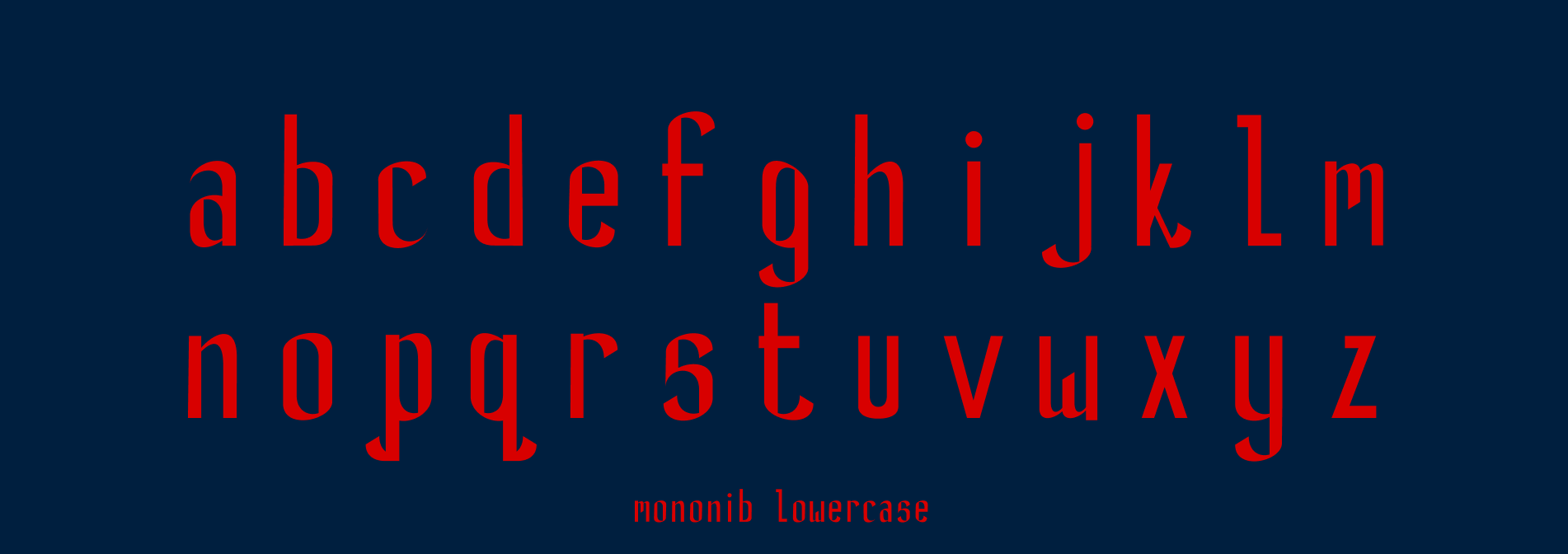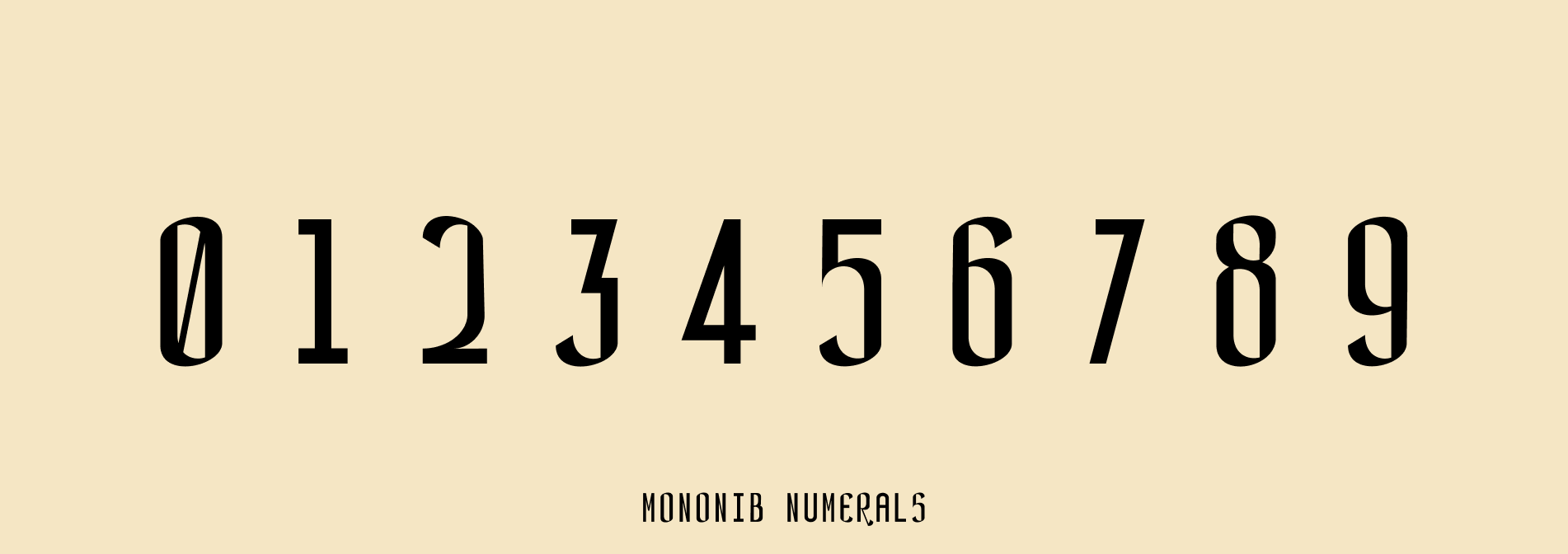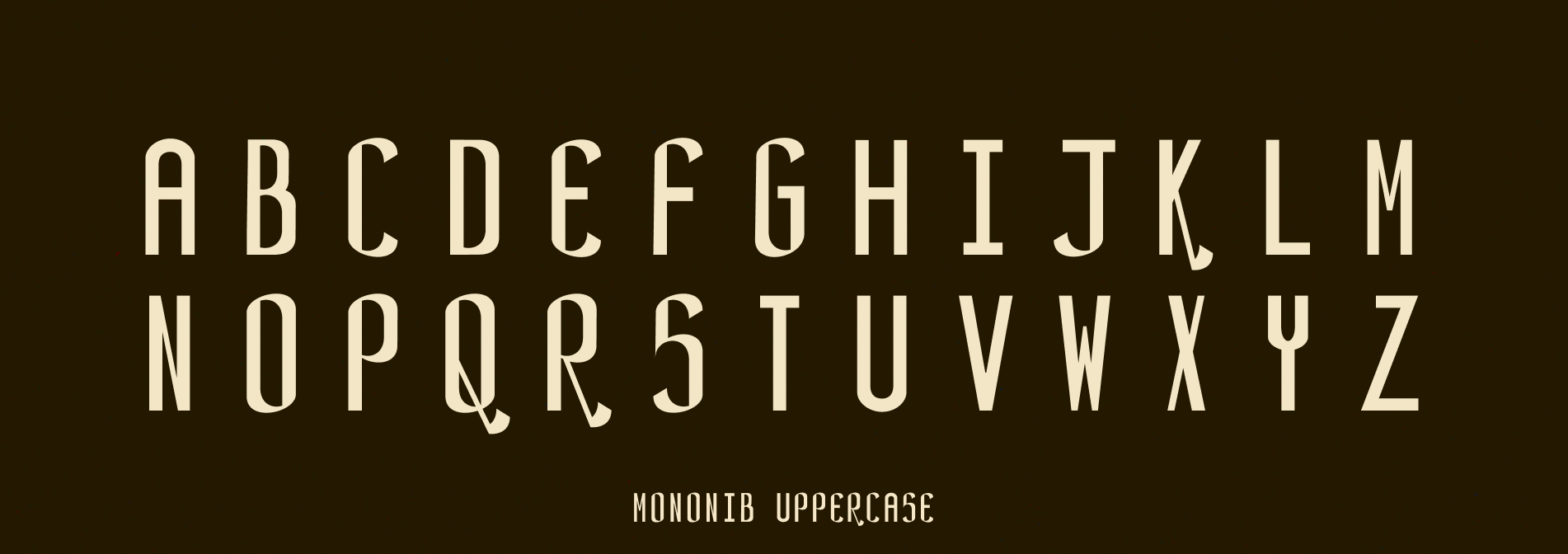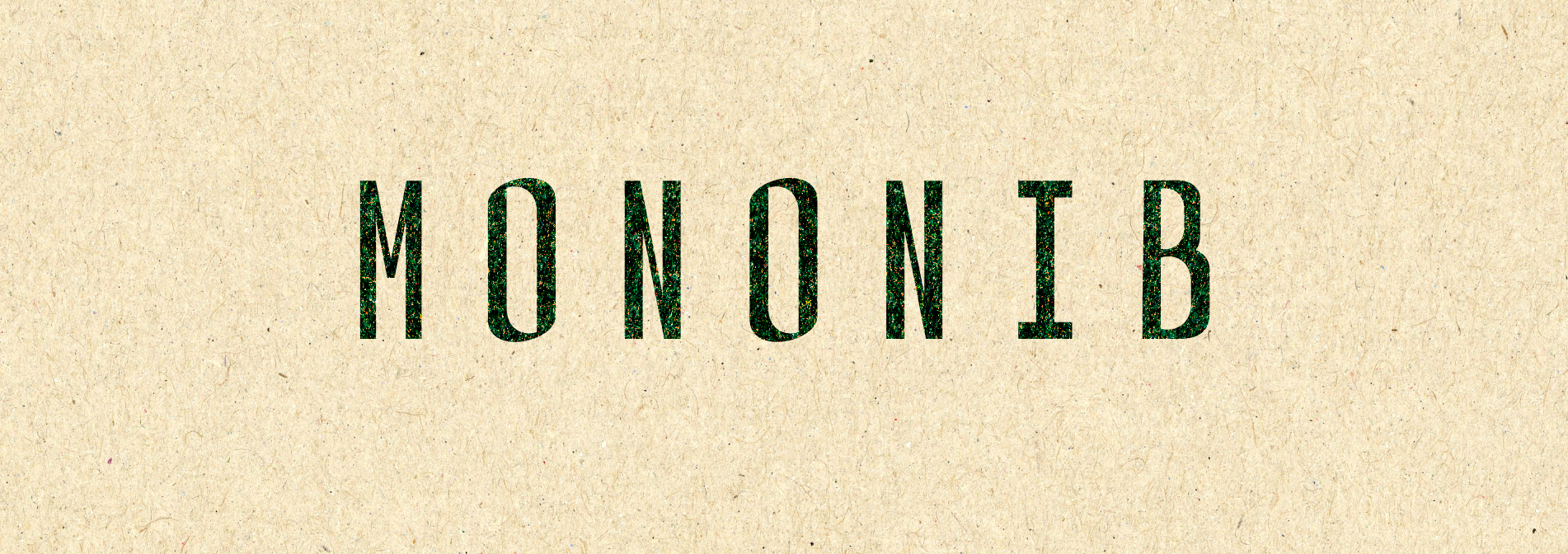
About MONO NIB
There is one nib. It doesn't always move. Sometimes the paper does.
Mononib is a monospace sans-serif display typeface built on the movement of a broad-edged nib held at a consistent angle within a fixed-width grid. Stroke contrast is not applied. It is produced. Thick and thin emerge from direction, not decoration. The tension between the calligraphic and the mechanical is not resolved in this font. It is the font.